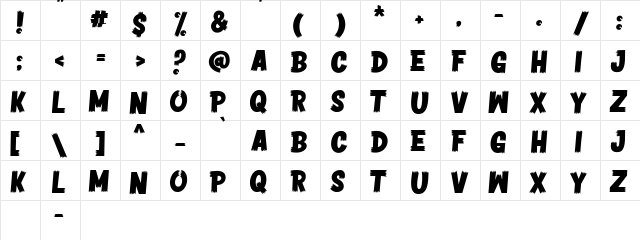
HORROR VISION Regular
| Designer | Memet Saputro |
Design Context for HORROR VISION Typeface
HORROR VISION carries an unsettling edge — its distorted letterforms are built to unsettle, perfectly suited to horror, Halloween, and dark creative work.
Ideal for Halloween projects, horror film titles, haunted house signage, and dark editorial design.
Font Pairing: Pair with a clean neutral sans-serif for body copy to let HORROR VISION's character lead without overwhelming the composition.
Pro Tip: HORROR VISION works best as a headline or focal element. Pair it against plain, neutral body text to amplify the contrast.